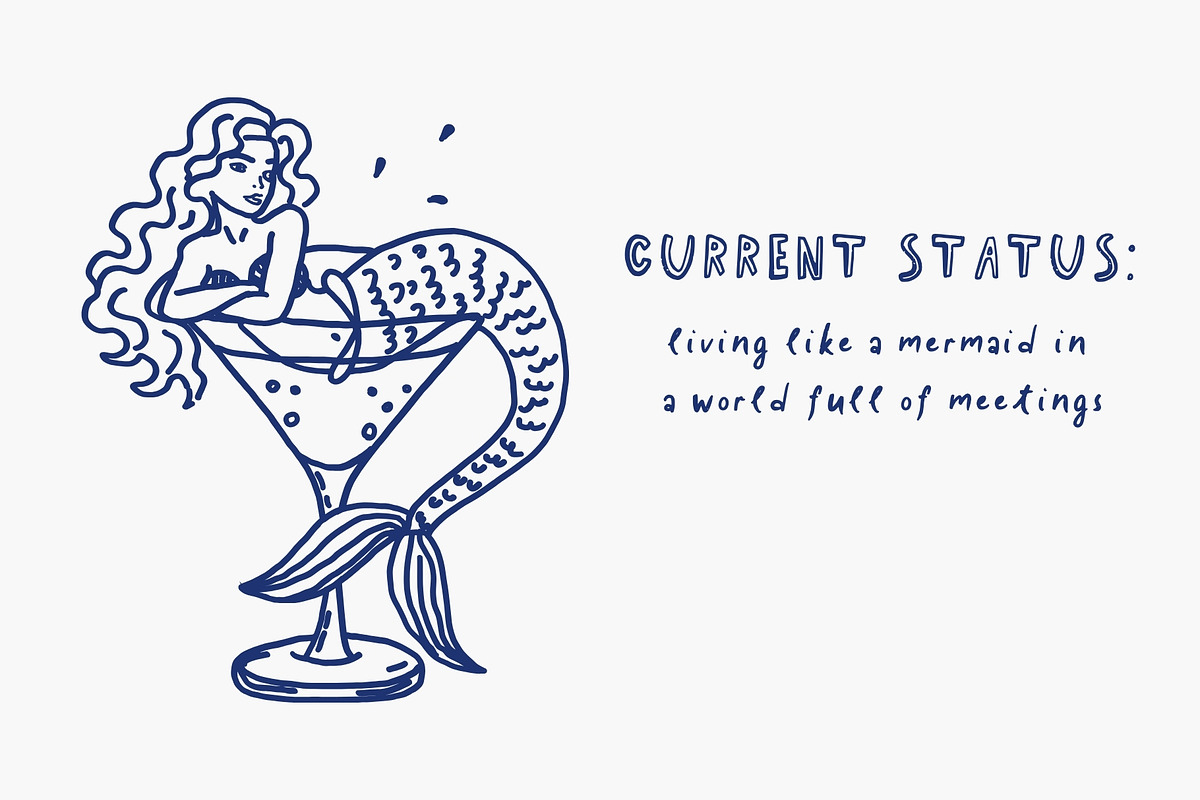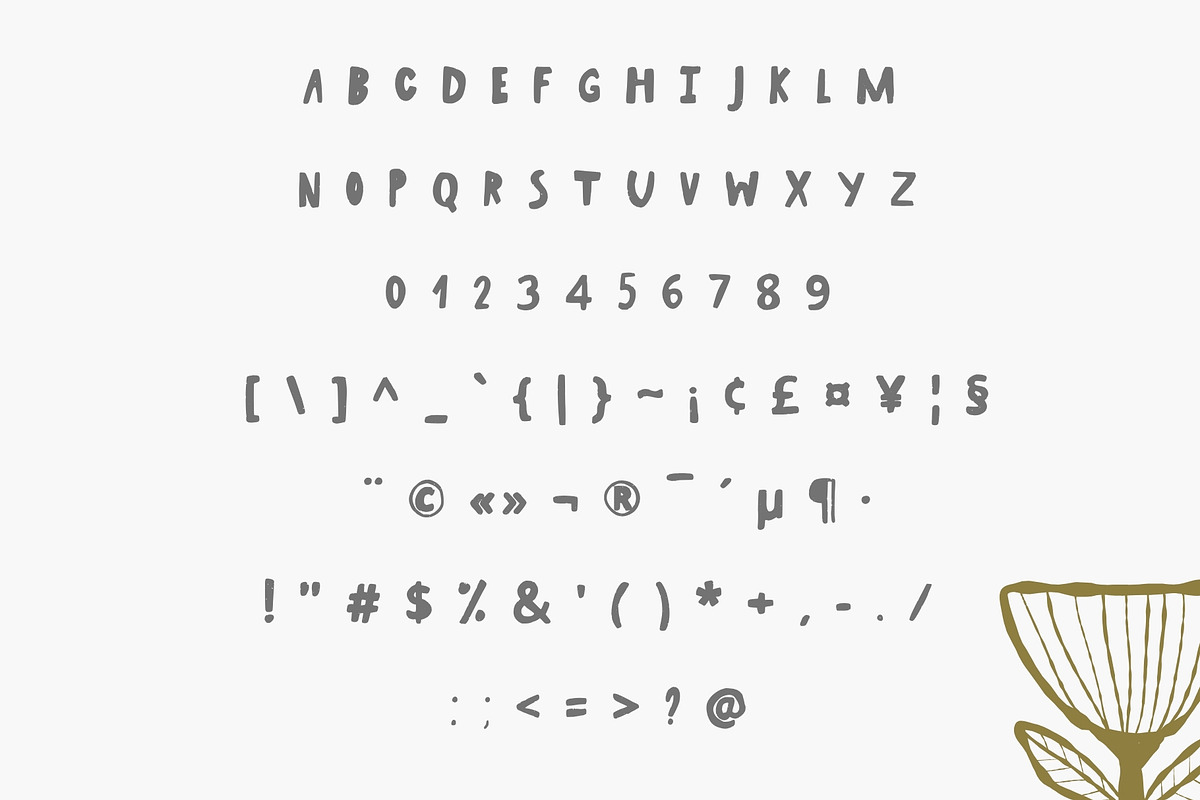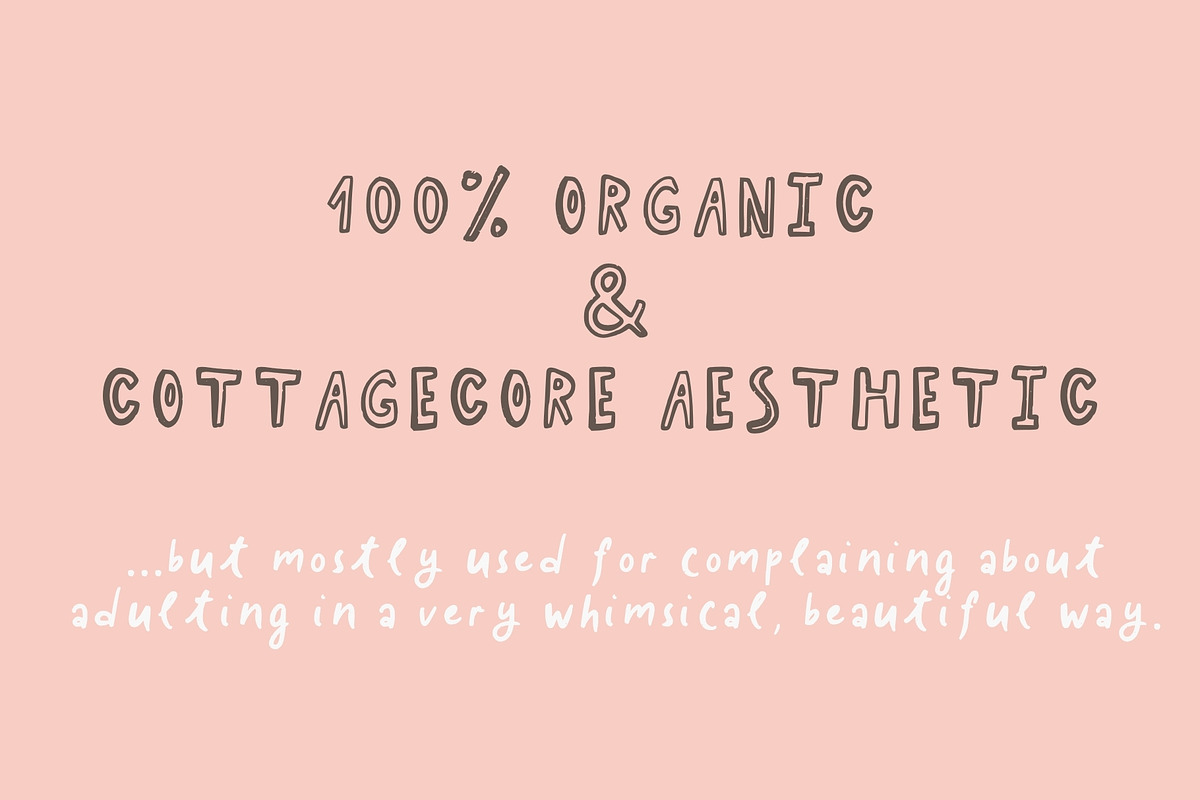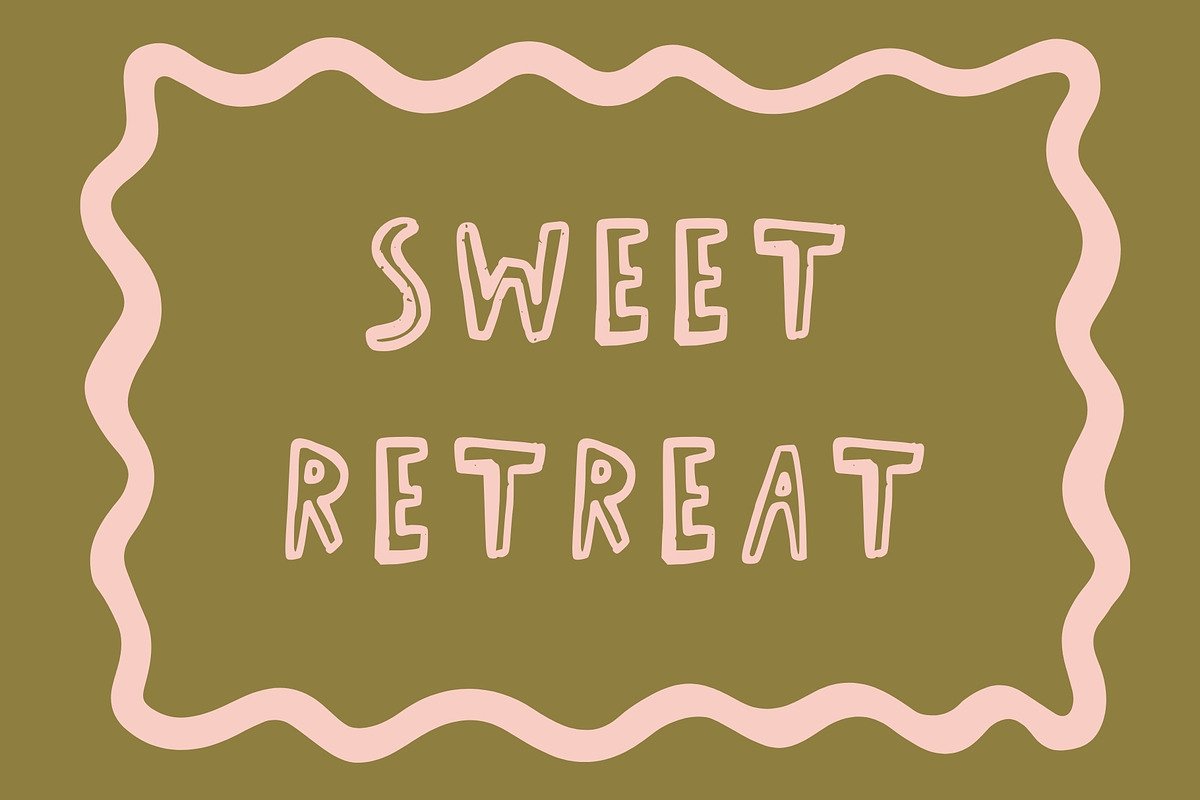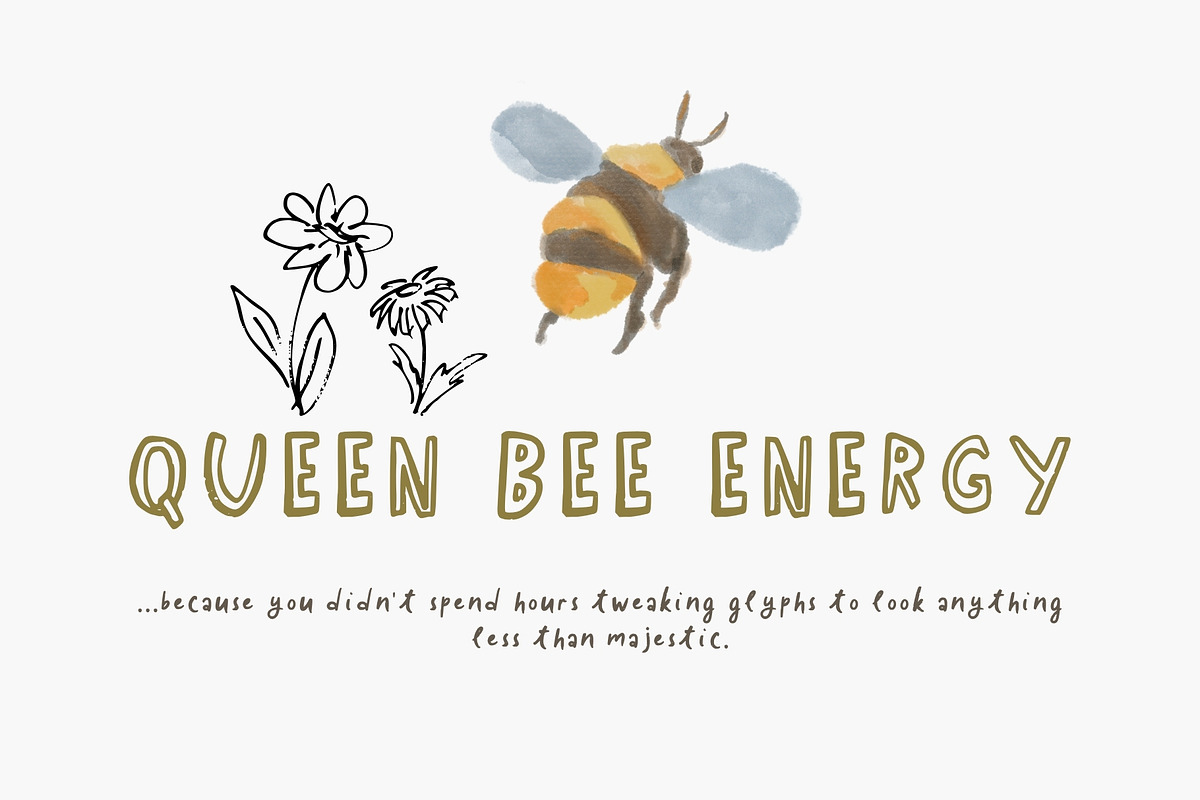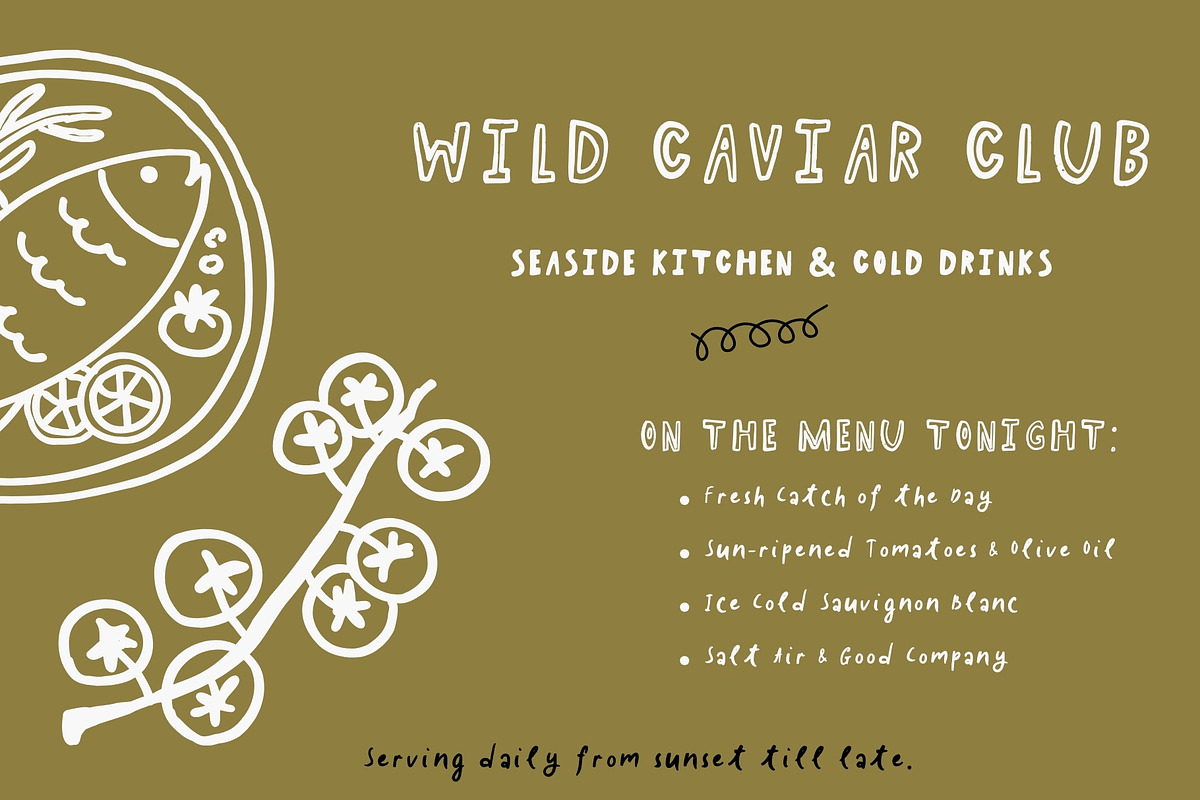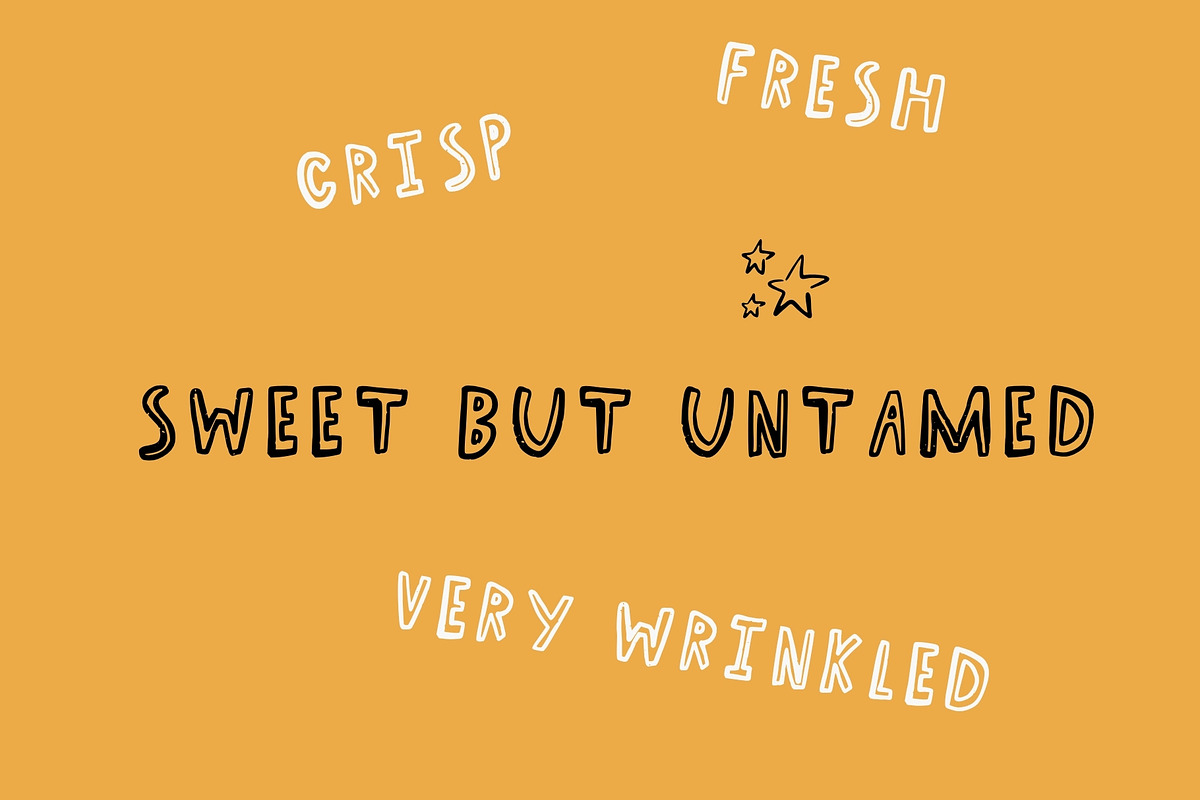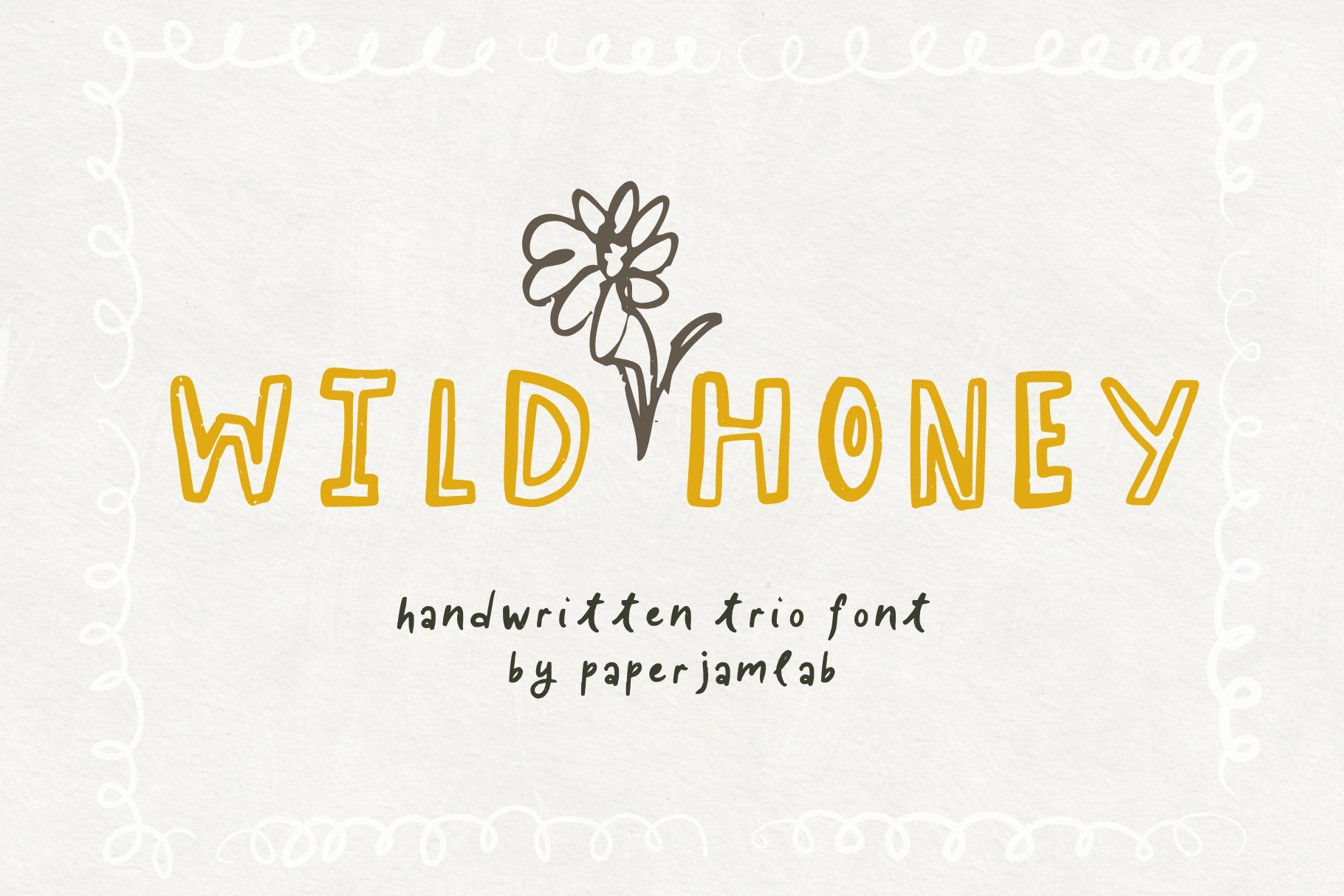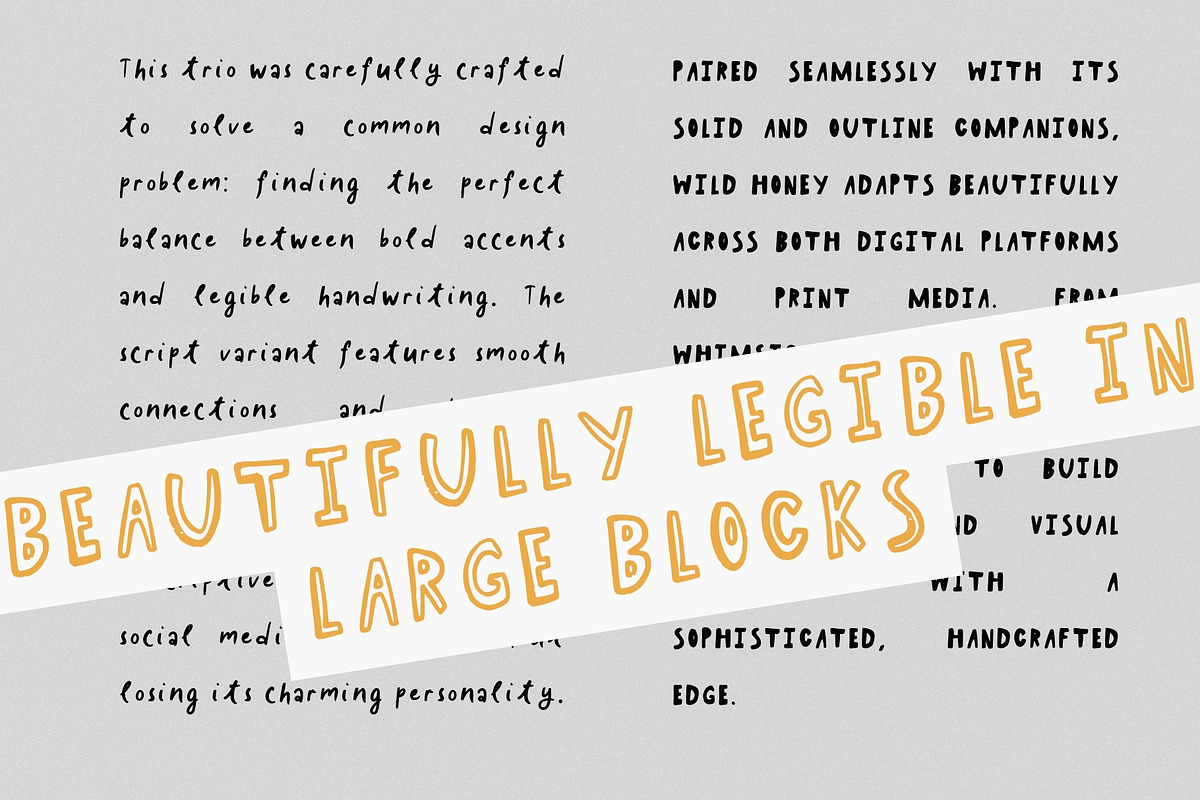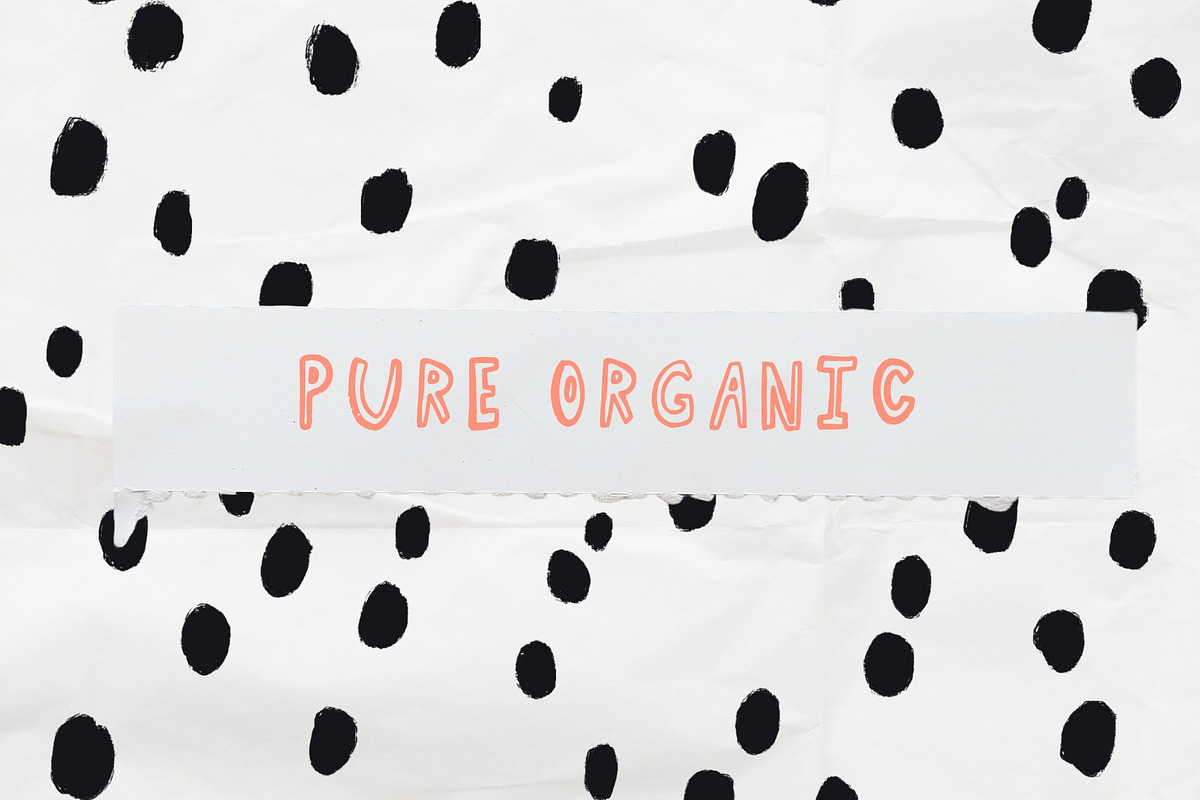
Wild Honey. Whimsical Font
Meet Wild Honey—a beautifully untamed, quirky, and deeply organic font designed for dreamers, storytellers, and slow-living brands. If you are looking to escape sterile, boring geometry and inject your designs with genuine human warmth, tactile character, and a touch of modern magic, this collection is your perfect match.